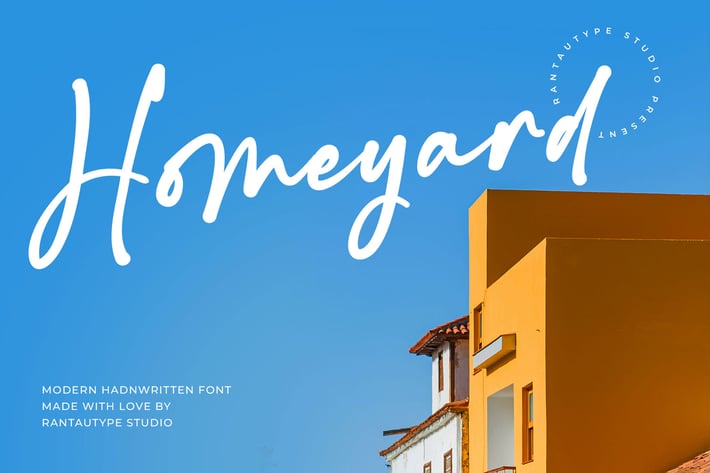
Homeyard Modern Handwritten Font
Homeyard is modern handwritten inspire trend of stylish font . Homeyard font come to create a sense of industrial and business branding with which can be versatile. See the preview, we made some example how font it look amazing in various design and forms of use.
Homeyard is a perfectly choice for any creative endeavor, chic, lifestyle design such as logotype, advertisements, watermark on photography, stationery, branding project, display and magazine, invitation, corporate brand, product design, label, business project and other project with handwritten taste.
Alternate and Ligature